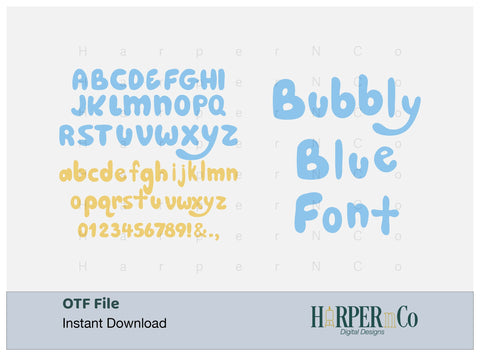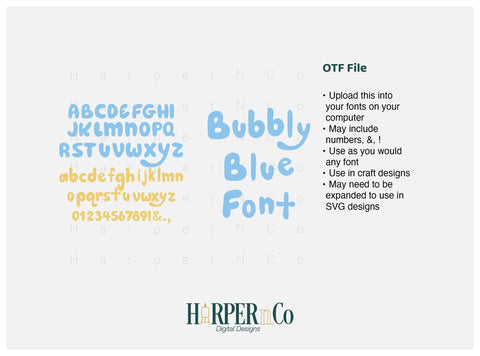
Bubbly Blue y Font, Hand drawn font, Font for crafting, cute font, dog inspired font, bubble font
This font is inspired by a favorite blue dog and is a hand drawn bubble font. OTF file, upload and add to your computer fonts to add to any craft projects.